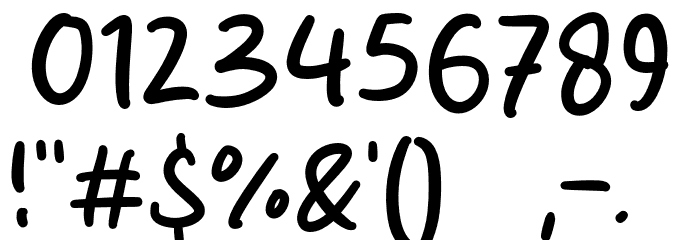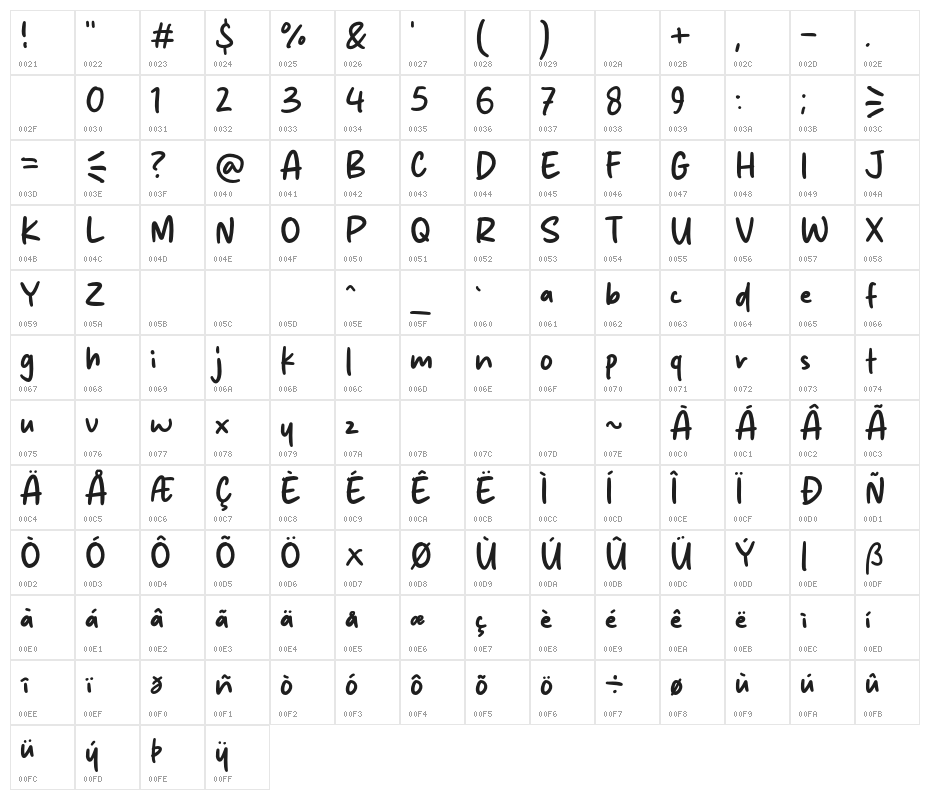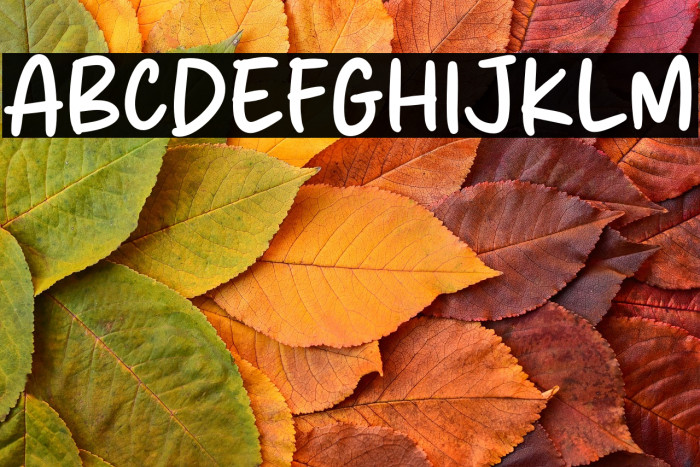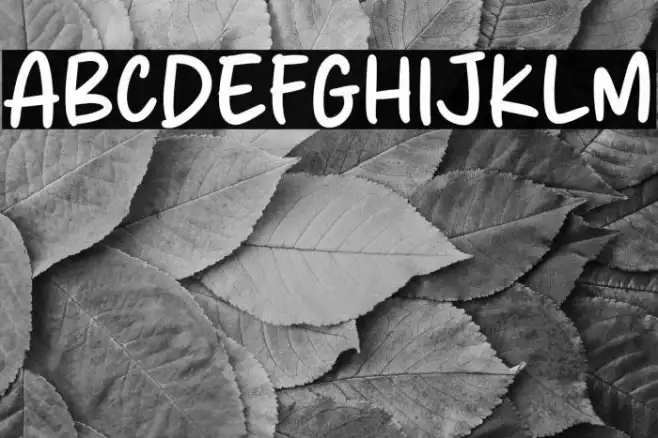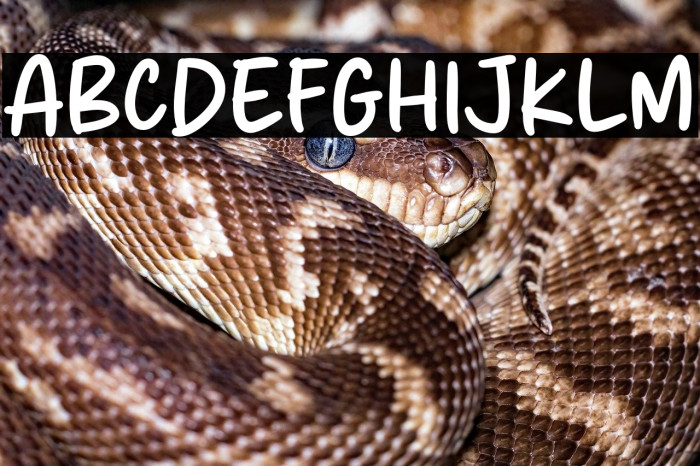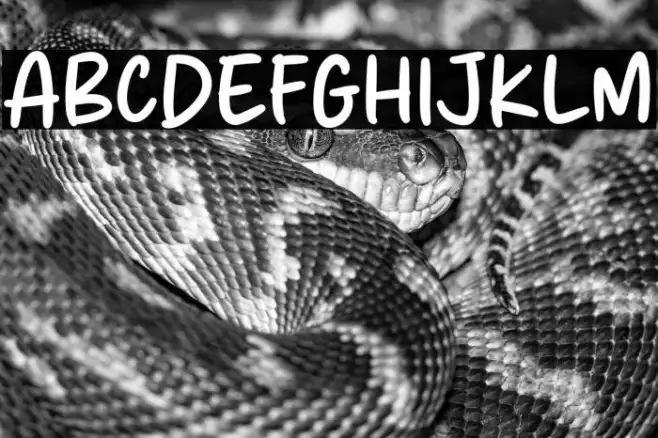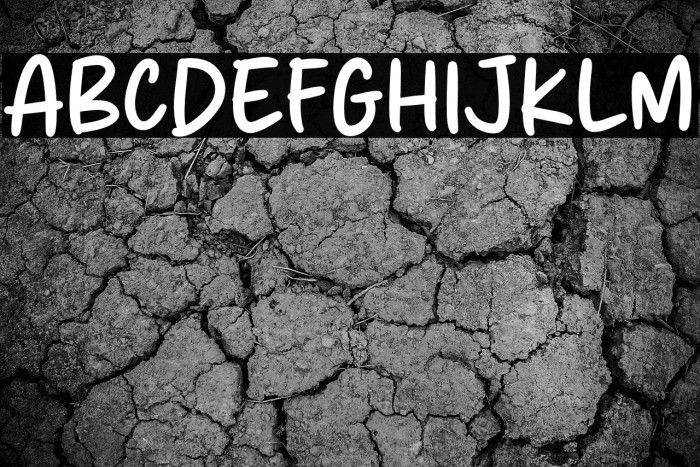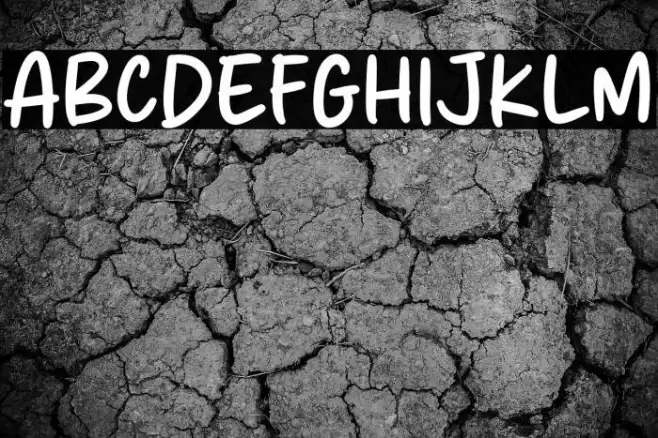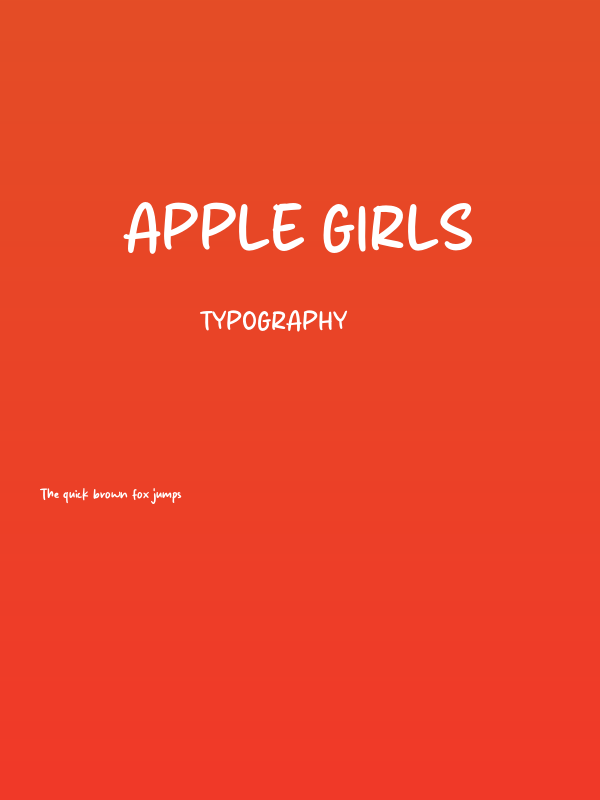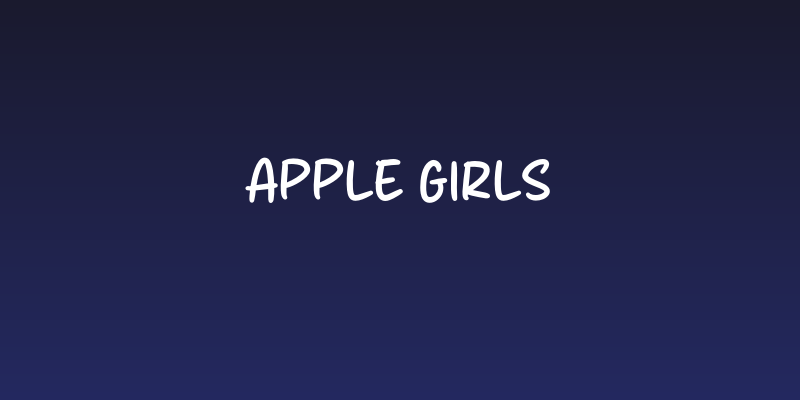
Apple Girls Font
Apple Girls Description
This font features a playful and casual handwritten style, characterized by its rounded and slightly irregular letterforms. The strokes are bold and consistent, giving it a friendly and approachable appearance. The uppercase and lowercase letters maintain a cohesive look, with a slight slant that adds to its informal charm. Numbers and special characters are designed to match the overall aesthetic, making it versatile for various uses. The font's organic flow and smooth curves make it ideal for projects that require a personal touch.
| Overall Style | Casual, Playful |
| Use Case | Logos, Headlines, Informal Text |
| Proposed Projects | Ideal for greeting cards, children's books, casual branding, and social media graphics. |